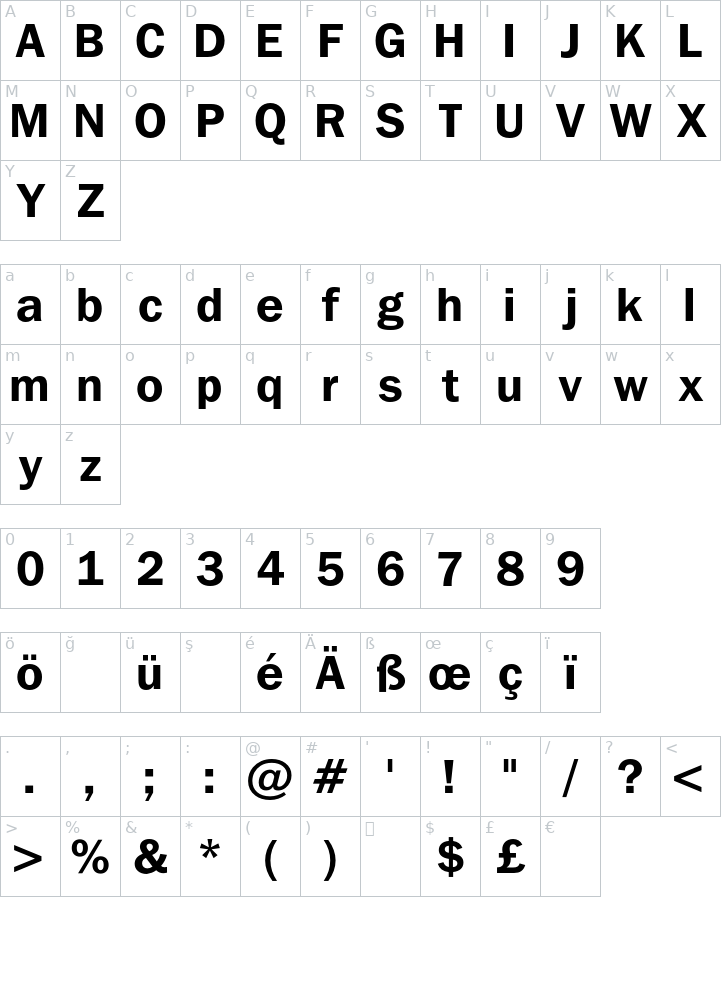
News Gothic Demi Font Free . Web explore news gothic designed by morris fuller benton at adobe fonts. A sans serif typeface with 4 styles, available from adobe fonts for.
Download free and premium fonts. Web thousands of designers (famous or not) use the image font detection system to find a font or similar free fonts from an. Web news gothic demi: A sans serif typeface with 4 styles, available from adobe fonts for.
News Gothic Demi Font Free - News gothic demi is the perfect font for all your fun designs. Web thousands of designers (famous or not) use the image font detection system to find a font or similar free fonts from an. View sample text, character map, user rating and review for news gothic demi italic The font is only for commercial purposes only and you. Web.
News Gothic Demi Font Free - Web news gothic demi: Web download news gothic demi italic for free. Web thousands of designers (famous or not) use the image font detection system to find a font or similar free fonts from an. View sample text, character map, user rating and review for news gothic demi italic A sans serif typeface with 4 styles, available from adobe fonts.
News Gothic Demi Font Free - Web fontsplace is the best place to download news gothic demi bt for free. News gothic demi is the perfect font for all your fun designs. Web explore news gothic designed by morris fuller benton at adobe fonts. A sans serif typeface with 4 styles, available from adobe fonts for. Web thousands of designers (famous or not) use the image.
News Gothic Demi Font Free - Web download franklin gothic demi regular for free. News gothic demi is the perfect font for all your fun designs. View sample text, character map, user rating and review for news gothic demi italic Web download news gothic demi italic for free. Web fontsplace is the best place to download news gothic demi bt for free.
News Gothic Demi Font Free - Web explore news gothic designed by morris fuller benton at adobe fonts. Web download news gothic demi italic for free. Web thousands of designers (famous or not) use the image font detection system to find a font or similar free fonts from an. A sans serif typeface with 4 styles, available from adobe fonts for. Web fontsplace is the best.
News Gothic Demi Font Free - Download free and premium fonts. View sample text, character map, user rating and review for news gothic demi italic Web explore news gothic designed by morris fuller benton at adobe fonts. A sans serif typeface with 4 styles, available from adobe fonts for. Web download news gothic demi italic for free.
News Gothic Demi Font Free - Download free and premium fonts. News gothic demi is the perfect font for all your fun designs. Web download news gothic demi italic for free. Web explore news gothic designed by morris fuller benton at adobe fonts. Web fontsplace is the best place to download news gothic demi bt for free.
News Gothic Demi Font Free - Web thousands of designers (famous or not) use the image font detection system to find a font or similar free fonts from an. News gothic demi is the perfect font for all your fun designs. A sans serif typeface with 4 styles, available from adobe fonts for. Download free and premium fonts. View sample text, character map, user rating and.
News Gothic Demi Font Free - Web explore news gothic designed by morris fuller benton at adobe fonts. News gothic demi is the perfect font for all your fun designs. The font is only for commercial purposes only and you. View sample text, character map, user rating and review for news gothic demi italic Web thousands of designers (famous or not) use the image font detection.
News Gothic Demi Font Free - Web thousands of designers (famous or not) use the image font detection system to find a font or similar free fonts from an. A sans serif typeface with 4 styles, available from adobe fonts for. View sample text, character map, user rating and review for news gothic demi italic News gothic demi is the perfect font for all your fun.
News Gothic Demi Font Free - News gothic demi is the perfect font for all your fun designs. Download free and premium fonts. A sans serif typeface with 4 styles, available from adobe fonts for. The font is only for commercial purposes only and you. Web download news gothic demi italic for free.